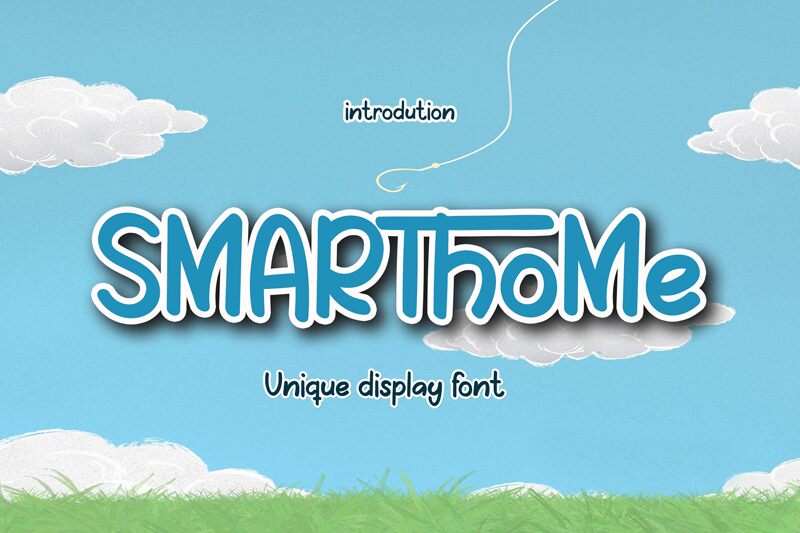
SMARTh0me
SMARTh0me font is a unique display typeface designed by Kateeng Ciu.
This font retains a classy calligraphic influence while feeling contemporary and fresh. This versatility will attract a wide range of creative ideas, from letterheads and titles to stationery.